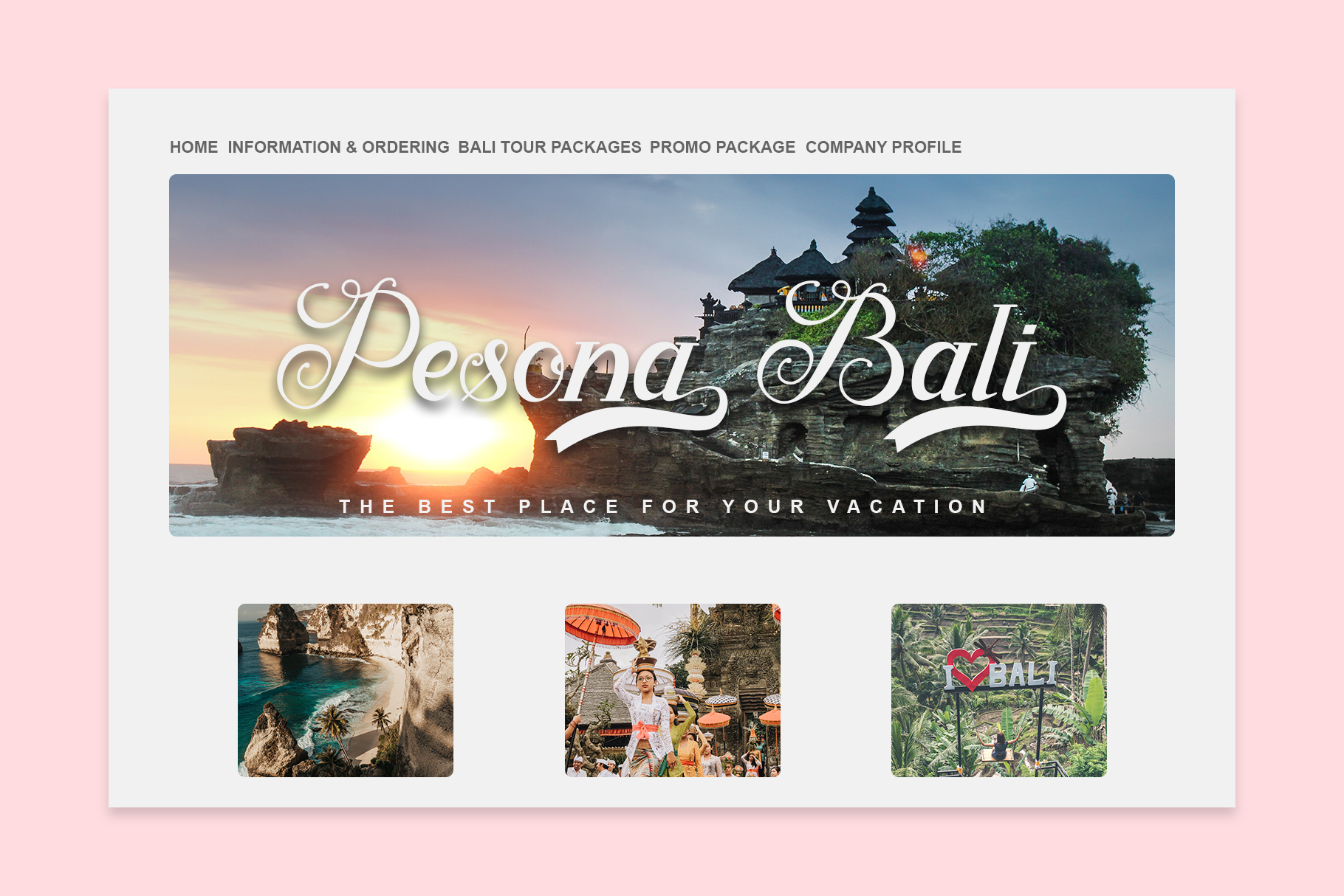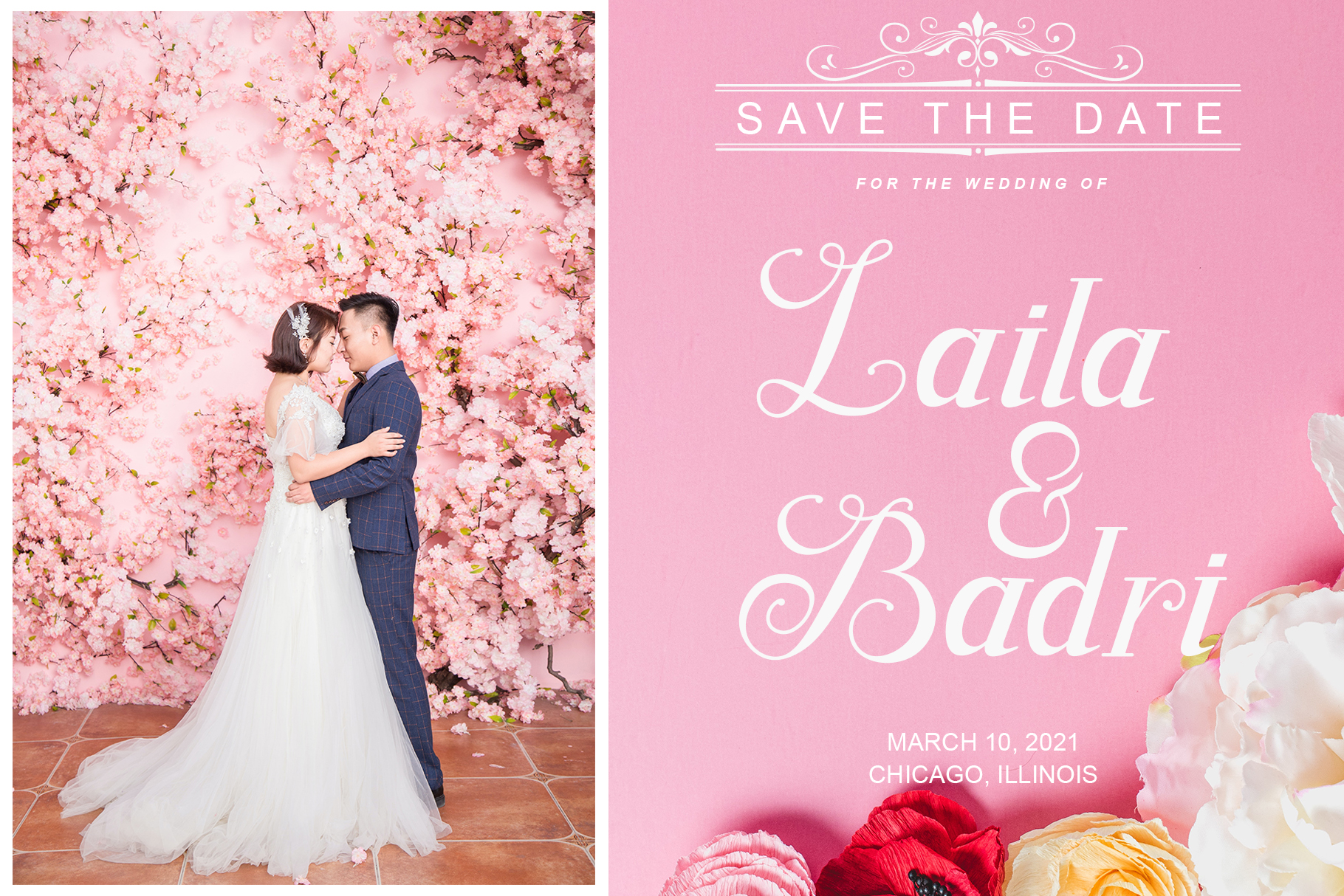
Besta Loving Font
Besta Loving Calligraphy Font
This is an enchanting handwritten font. This versatile script font has a wide spectrum of applications ranging from greeting cards to headlines and is guaranteed to add a romantic feel to your next project.